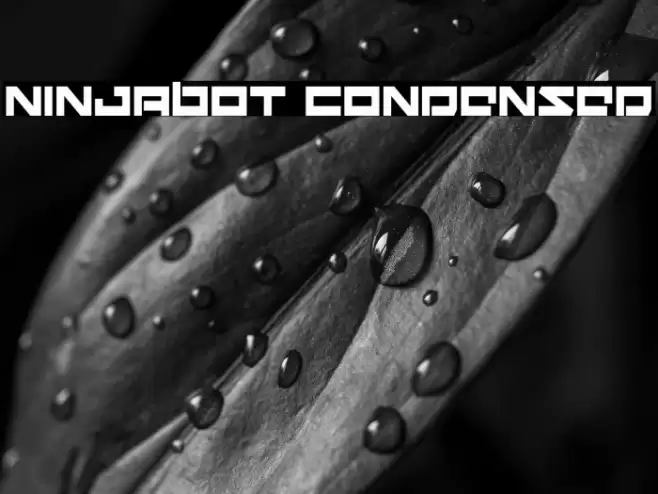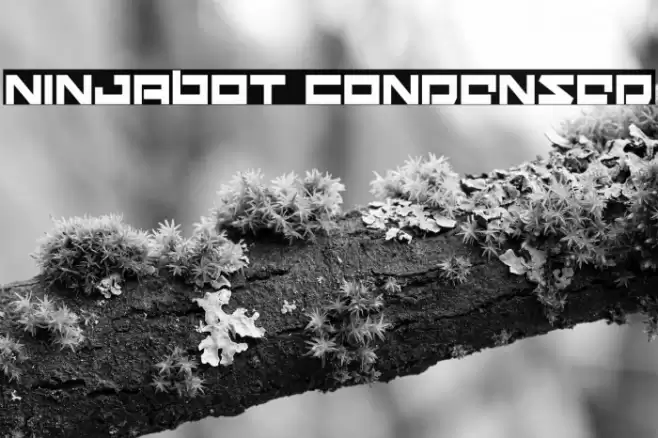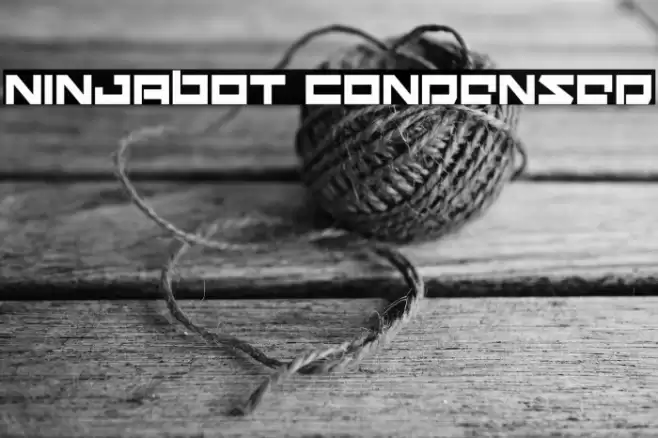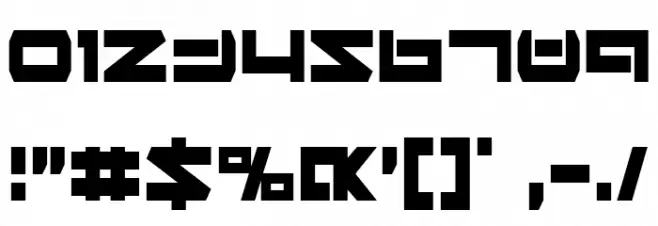
Ninjabot Condensed Font
Ninjabot Condensed Description
This font features a bold, futuristic design with a strong geometric structure. The characters are constructed with angular lines and sharp edges, giving it a robotic and mechanical appearance. The uppercase and lowercase letters maintain a consistent style, with a uniform height and width that enhances its condensed nature. The numerals and special characters follow the same design principles, ensuring a cohesive look across all elements. The font's unique style makes it stand out, ideal for projects that require a modern and tech-inspired aesthetic.
A bold, futuristic font with angular, geometric characters from Uncategorized fonts.
- Font: Ninjabot Condensed
- Proposed Projects: Ideal for sci-fi themed designs, tech branding, video game titles, and futuristic posters.
- Width: Condensed
- Contrast:
- Overall Style: Modern, Futuristic